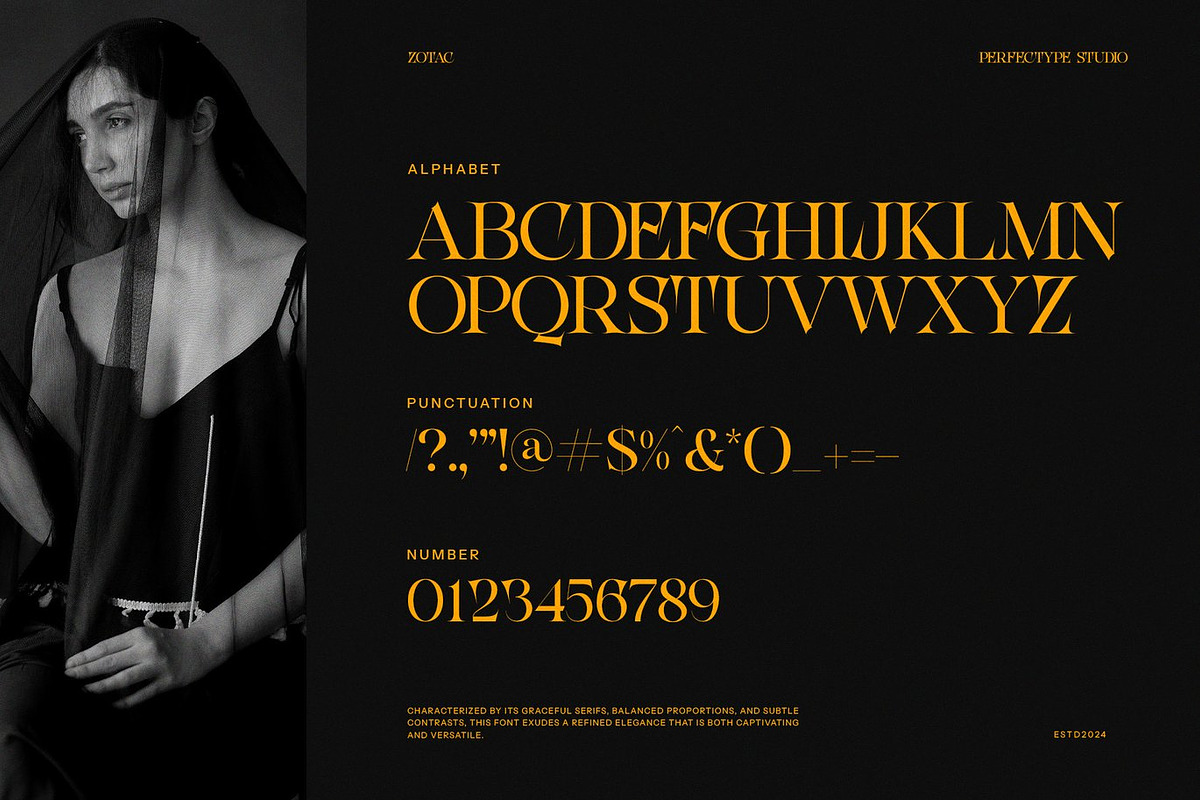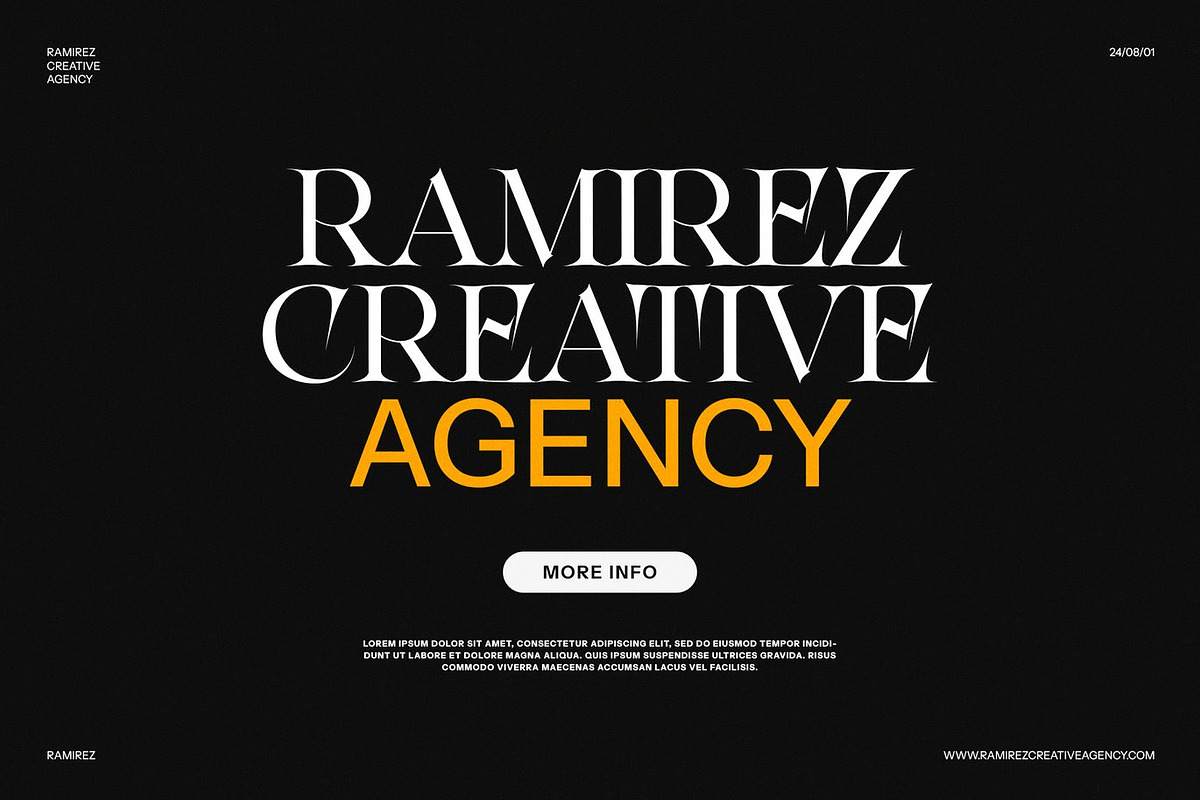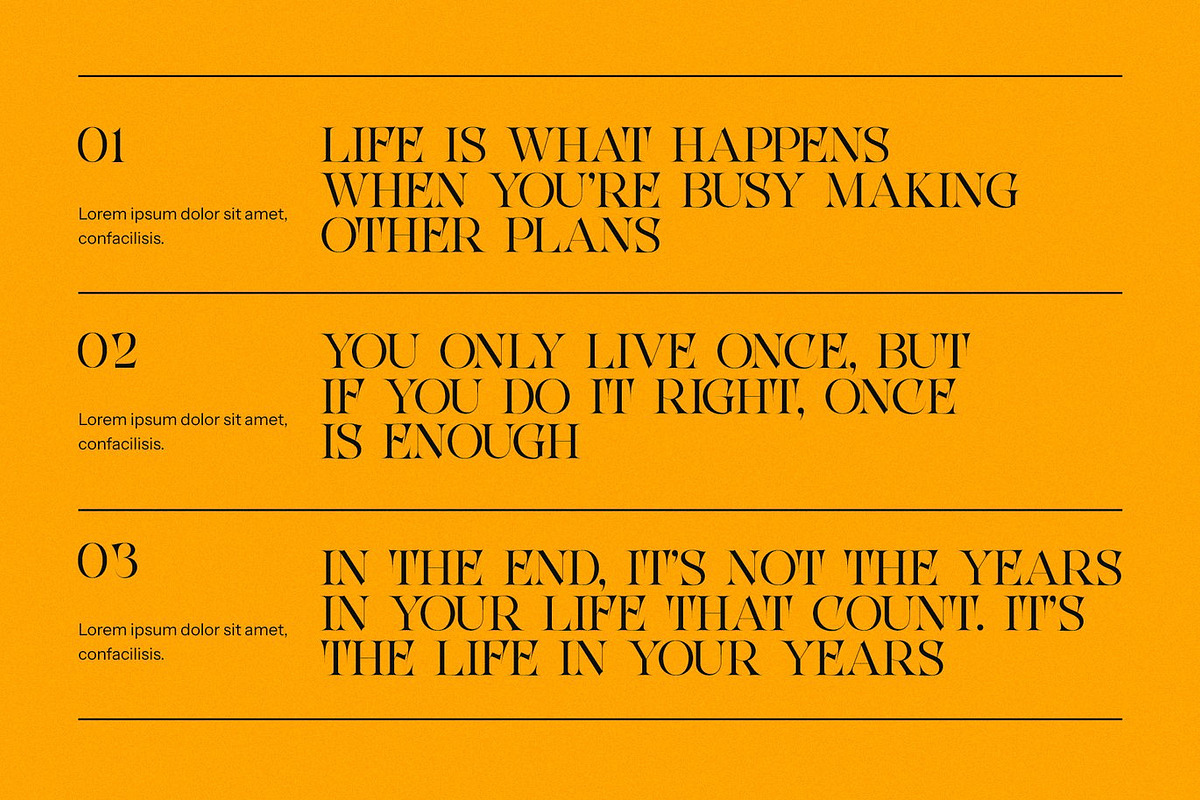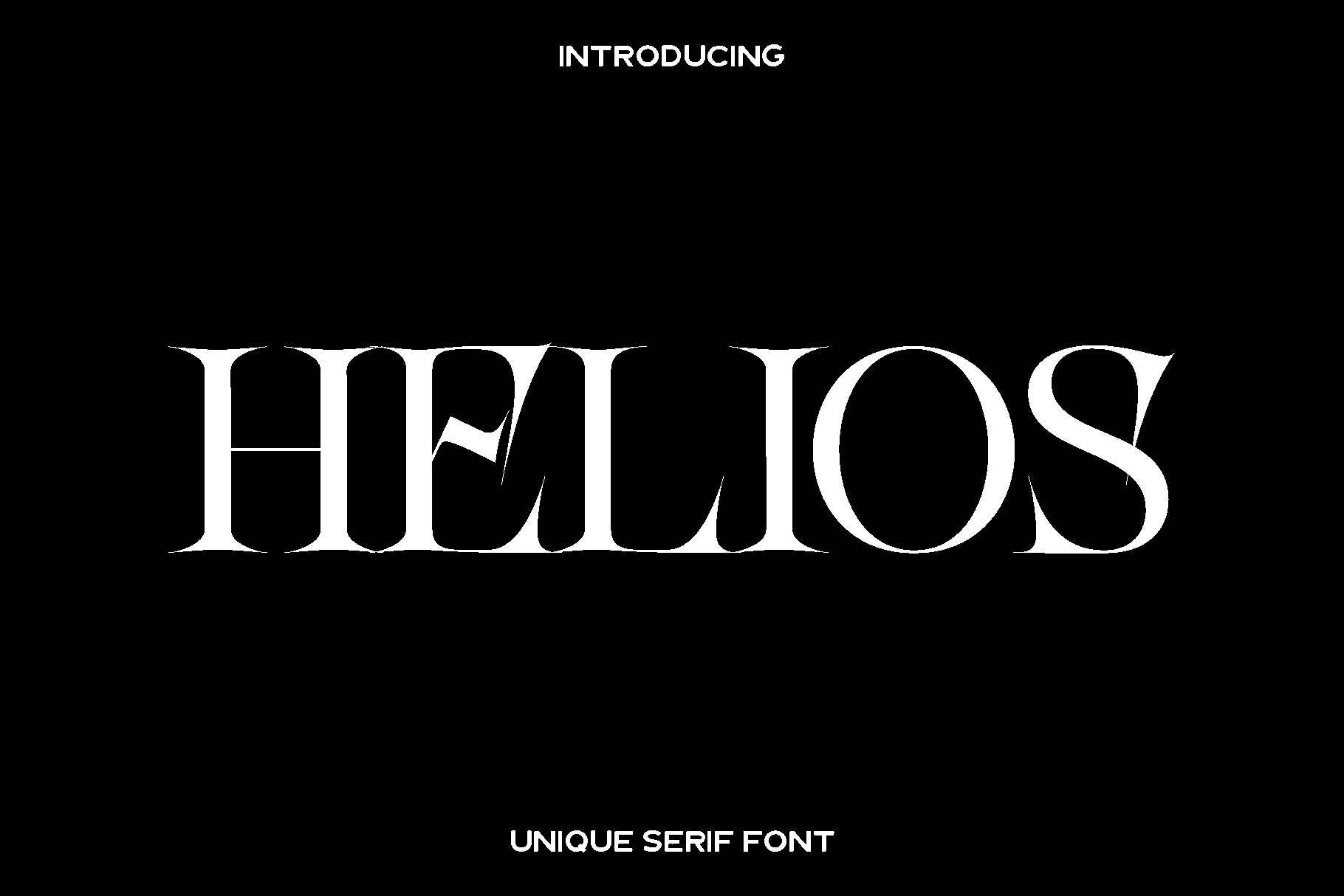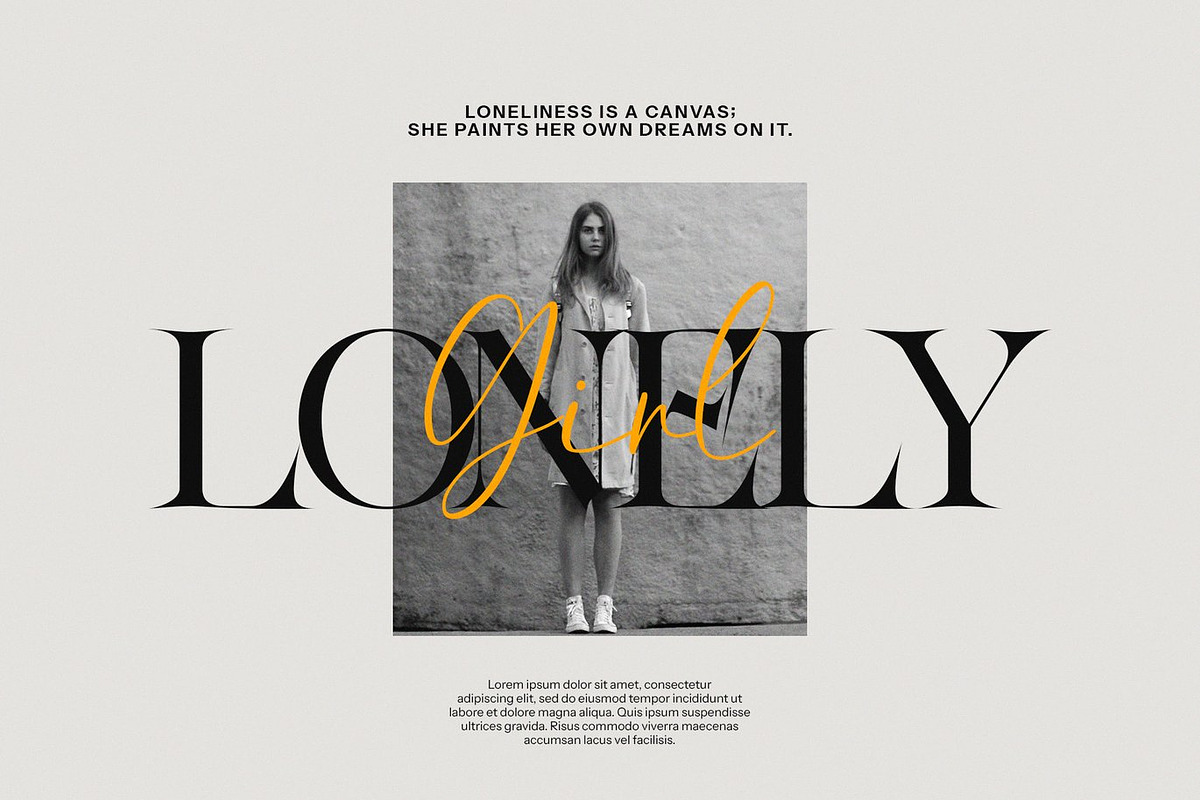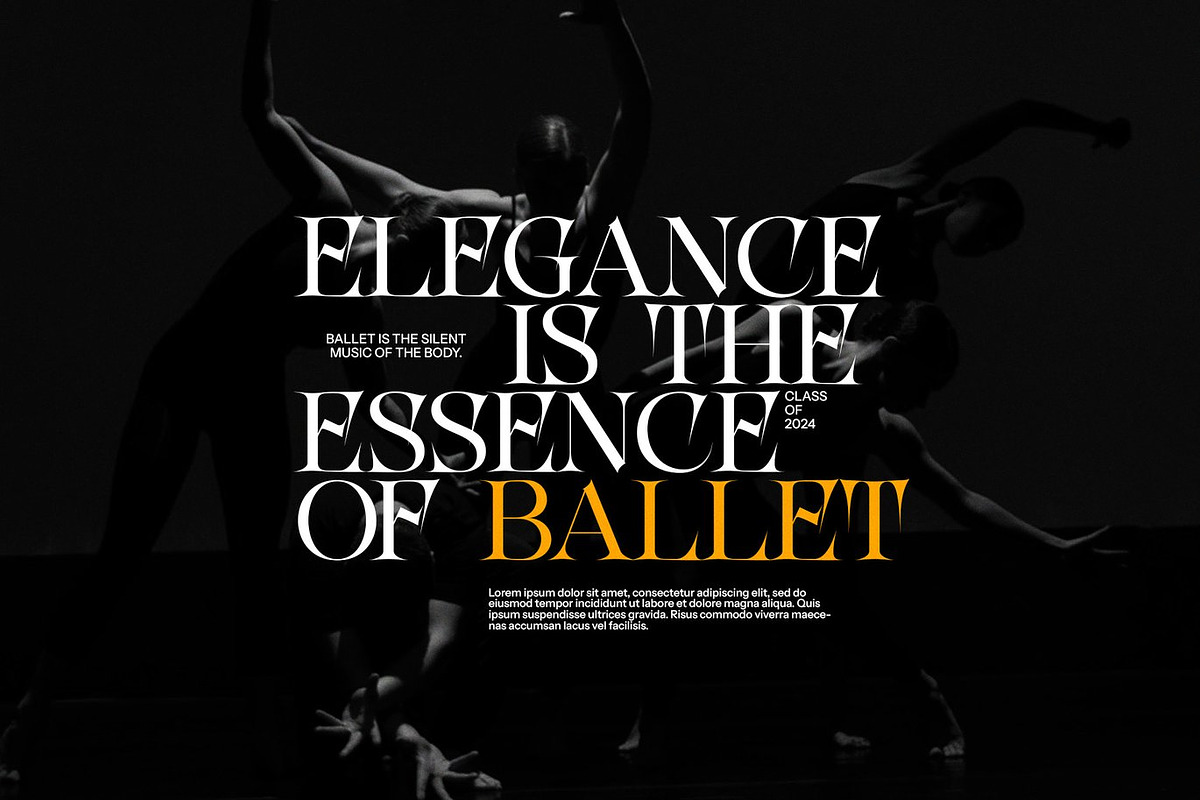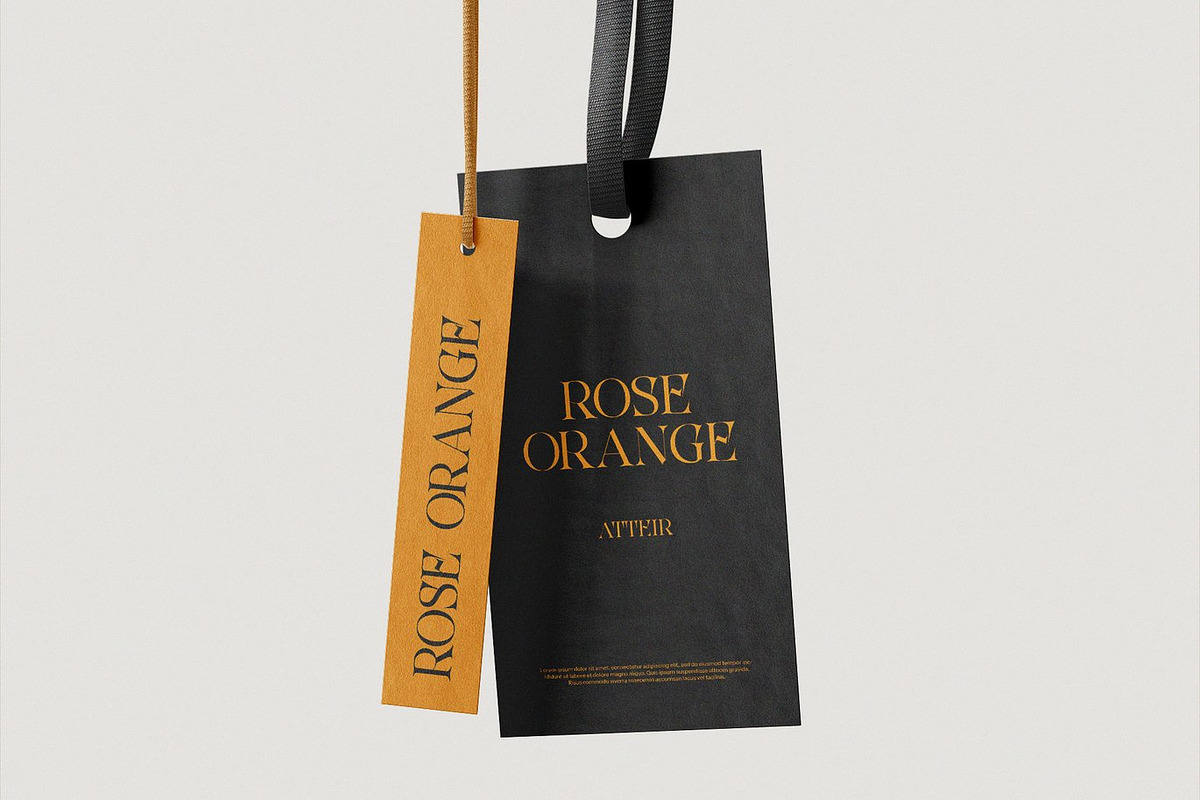
Helios - Classy Serif Font
Helios is a refined serif font crafted for designers who seek elegance, luxury, and timeless beauty in their work. Inspired by classic sophistication and modern high end aesthetics, Helios features graceful curves, balanced proportions, and smooth serifs that elevate any visual project. Each character is designed with precision, giving your typography a polished and professional appearance that radiates class.
This font shines in branding, logo design, editorial layouts, product packaging, and luxury themed visuals. Its clean structure and high legibility make it ideal for both bold headlines and subtle text elements. Whether you are creating wedding invitations, photography watermarks, advertisements, or social media graphics, Helios brings a sense of refinement and charm that enhances every design. Its elegant style makes it suitable for premium brands, creative agencies, and designers who want to leave a lasting impression.
Helios blends artistic beauty with practical versatility, making it a valuable addition to any professional font collection. Its luxurious feel and clear readability ensure your work stands out with sophistication across both print and digital formats.
• Standard characters
• Numbers and punctuation
• Accented characters for Western Europe